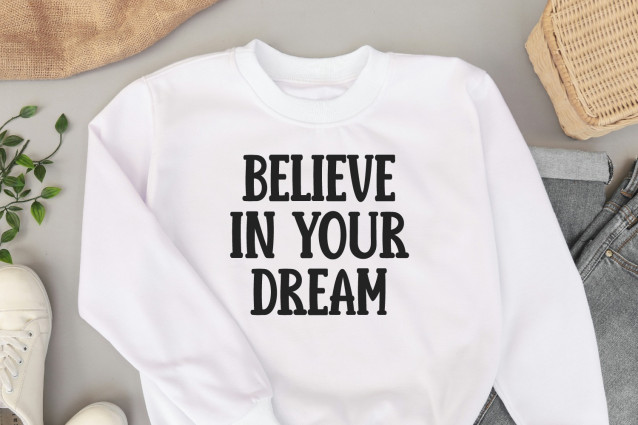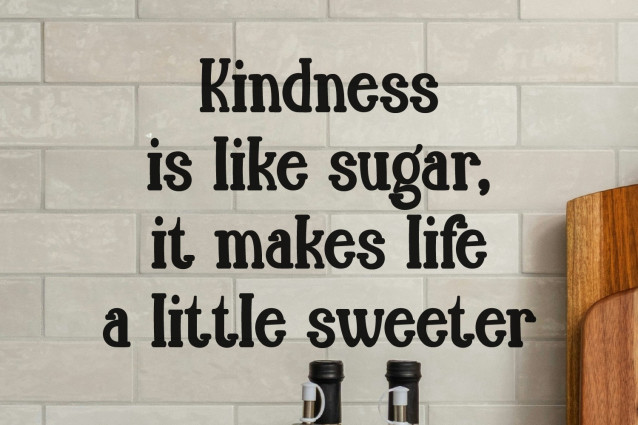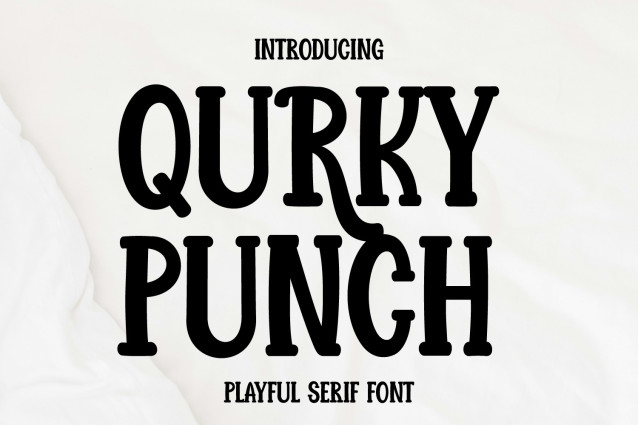
Quirky Punch Font
Quirky Punch is a fun and playful serif font that brings a bold and energetic personality to your designs. With its chunky letterforms and quirky details, this font is perfect for eye-catching headlines, branding, posters, and creative projects. Whether you’re designing for kids’ themes, retro aesthetics, or modern playful concepts, Quirky Punch adds a touch of charm and uniqueness to any layout. Let your creativity shine with this lively and expressive typeface!